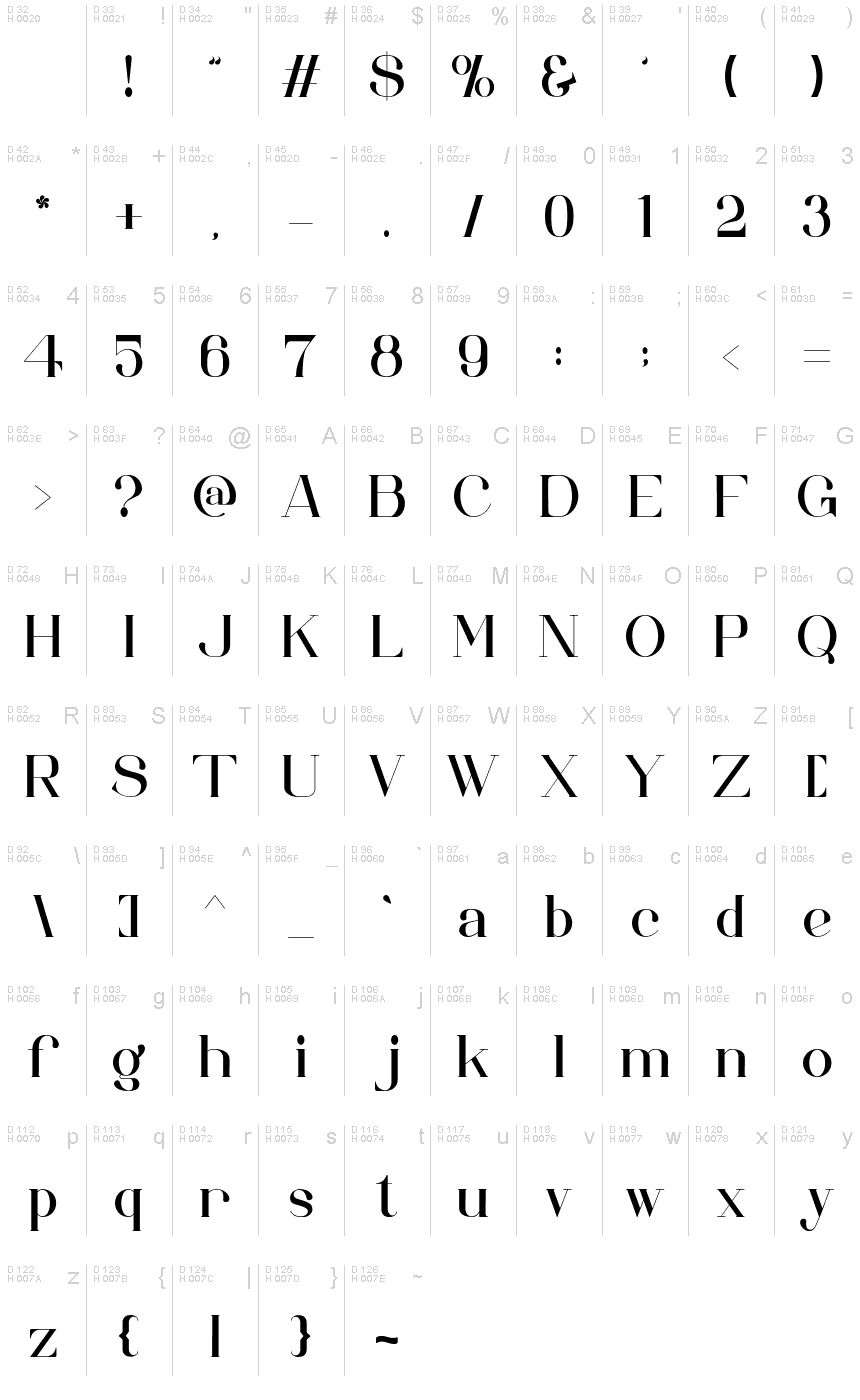
Chelsea
Chelsea, an elegant serif font designed by Kong Font, brings a touch of sophistication to any project. With its graceful curves and refined lines, this font captures the essence of timeless beauty.
The Chelsea font is perfect for creating wedding invitations that exude romance and luxury. Its classic charm also makes it suitable for designing book covers that evoke a sense of nostalgia and elegance. Additionally, this font can add a touch of sophistication to restaurant menus or high-end fashion magazines, making them visually captivating and memorable.